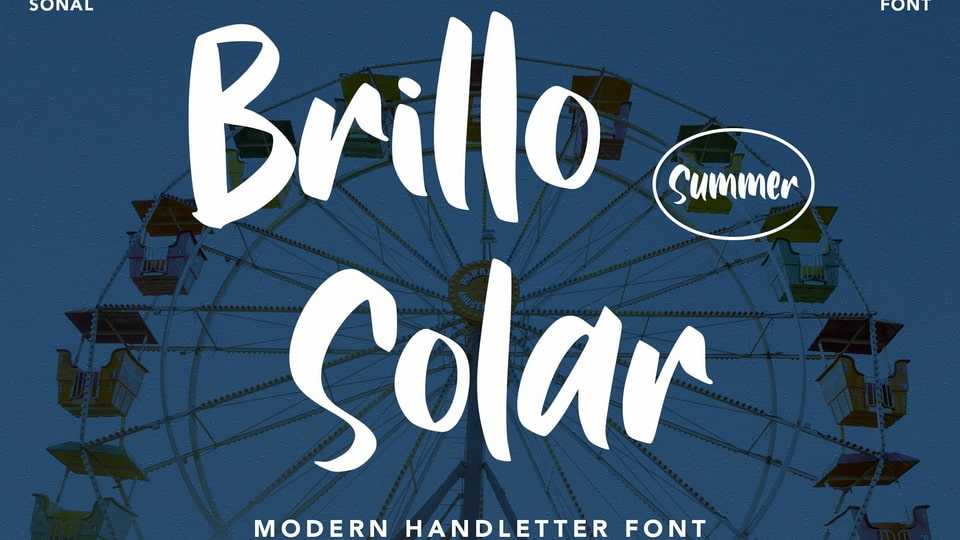
Download Brillo Solar font, a beautiful, adaptable and trendy script typeface. Brillo Solar is defined by smooth curves and is perfect for fashion branding or editorial designs.
Designer: Arendx Studio